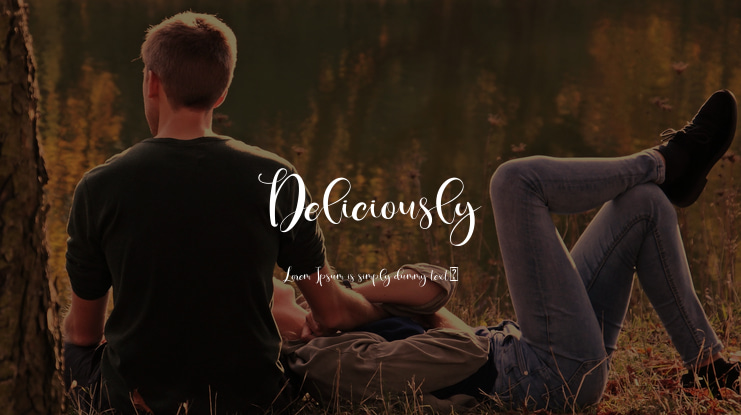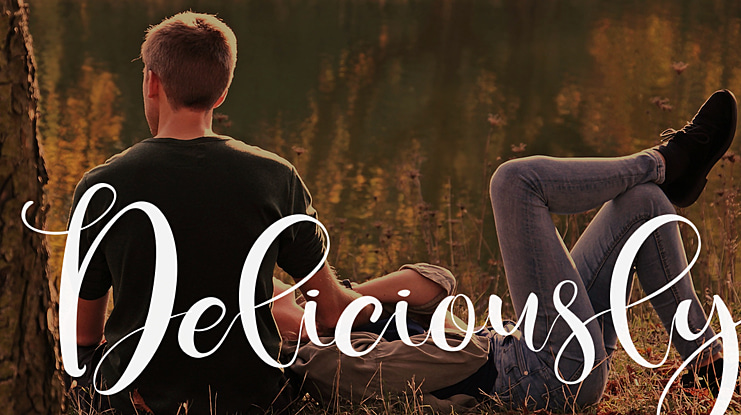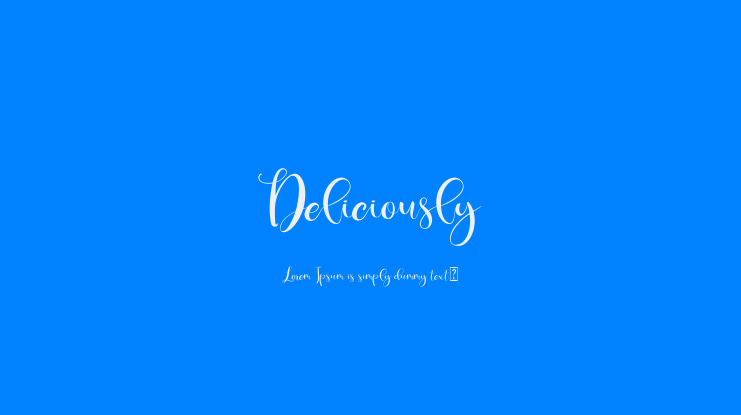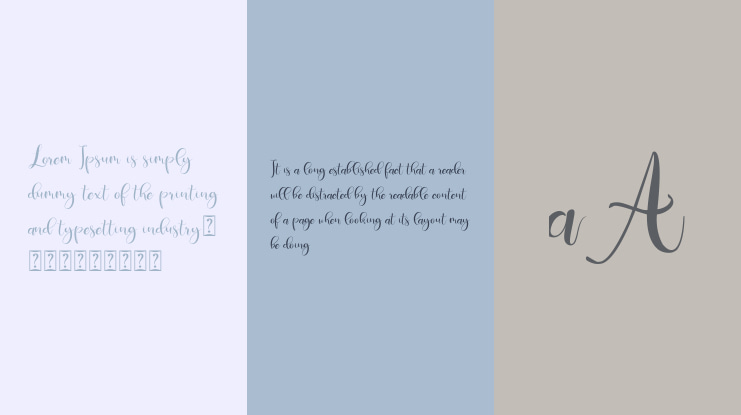
Deliciously Font
Let me introduce you this Deliciously Font Duo Set.
Deliciously Font Duo Set is a modern font script with more features included:
Deliciously Regular Font
3 Stylistic Set with Multilingual Support
Bold and Regular Fun Sans Font
41 Fun Doodles
This font is suitable for logos, branding projects, product packaging, quotes, greeting cards and all of your lovely projects. Deliciously Font Duo Set contains a full set of lowercase and uppercase letters; a large range of punctuation; numerals; multilingual support and many cute alternates.
Features:
Stylistic Alternates
Character Set A-Z
Numerals and Punctuation (OpenType Standard)
Accents (Multilingual Characters)
With a modern and playful design, I hope the Deliciously Font Duo Set could make your project design more awesome.